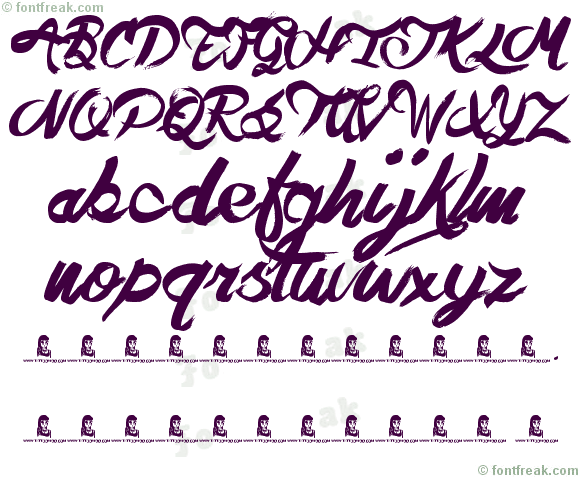
The Hit
About The Hit
The Hit font by Jonathan S. Harris is a striking display typeface that captures attention with its unique handwritten style. This font is characterized by its bold, brush-like strokes that convey a sense of artistic flair and creativity. The contrast between thick and thin lines adds a dynamic quality, while the slightly irregular spacing enhances its organic, hand-drawn appearance. The decorative elements, including dramatic curves and playful swashes, give The Hit a lively and expressive character, making it suitable for various creative projects.
Ideal use cases for The Hit include wedding invitations, where its elegant yet informal style adds a personal touch, and movie posters, where it can evoke a sense of excitement and drama. Additionally, restaurant menus can benefit from this font's engaging aesthetic, drawing customers in with its inviting look. It also works wonderfully for branding projects, especially for businesses in the creative or lifestyle sectors, as it effectively communicates a friendly, approachable vibe.
The target audience for The Hit font includes graphic designers looking for a standout typeface for their projects, small business owners aiming to create distinctive marketing materials, and content creators seeking to enhance their visual storytelling.
What sets The Hit apart is its versatility combined with an artistic edge. It seamlessly blends a casual, handwritten feel with the sophistication necessary for professional applications. This makes The Hit a compelling choice for anyone wanting to infuse their designs with personality and flair. With The Hit font free download available, you can easily incorporate this captivating typeface into your next creative endeavor, ensuring your work stands out in a crowded marketplace.